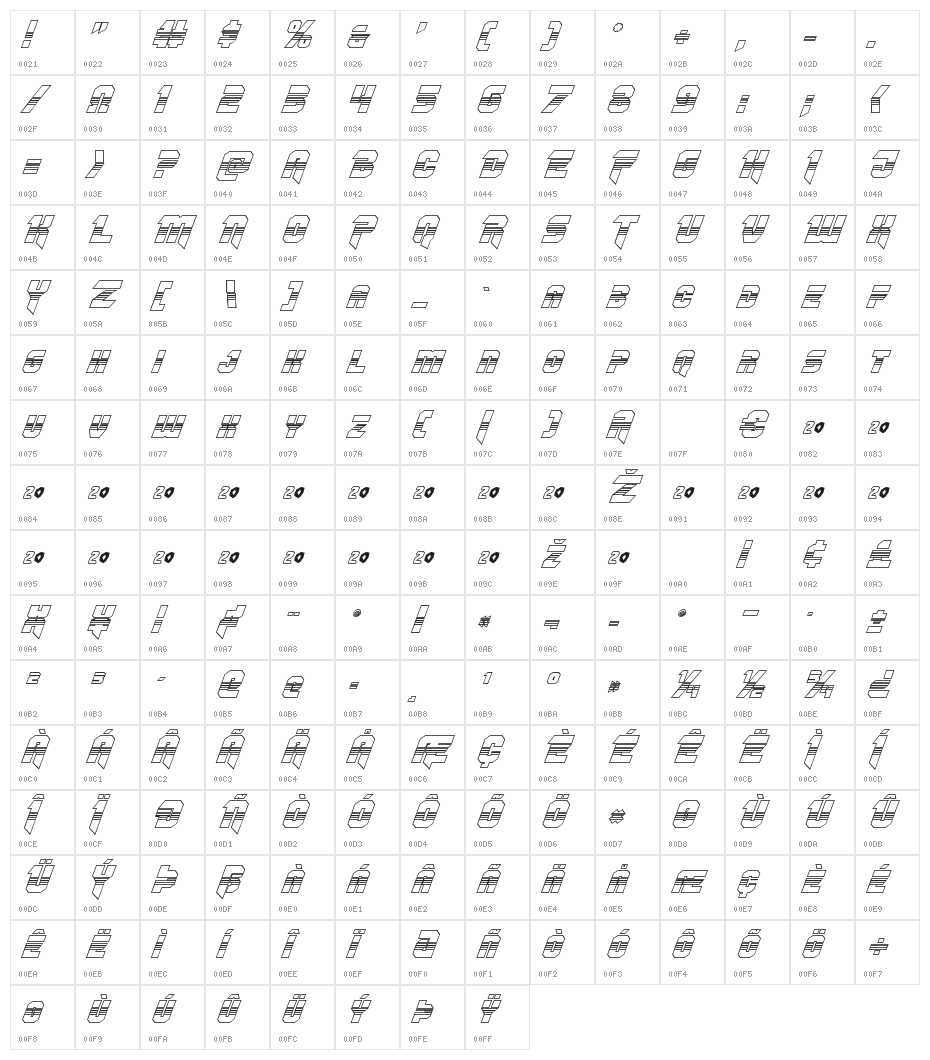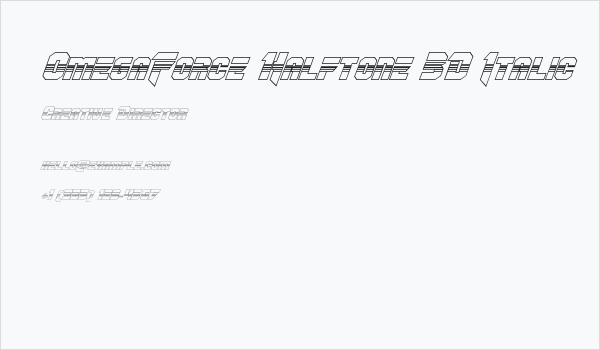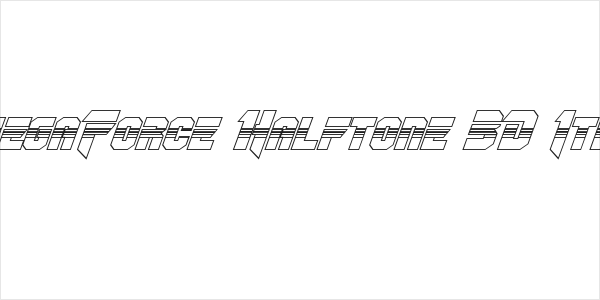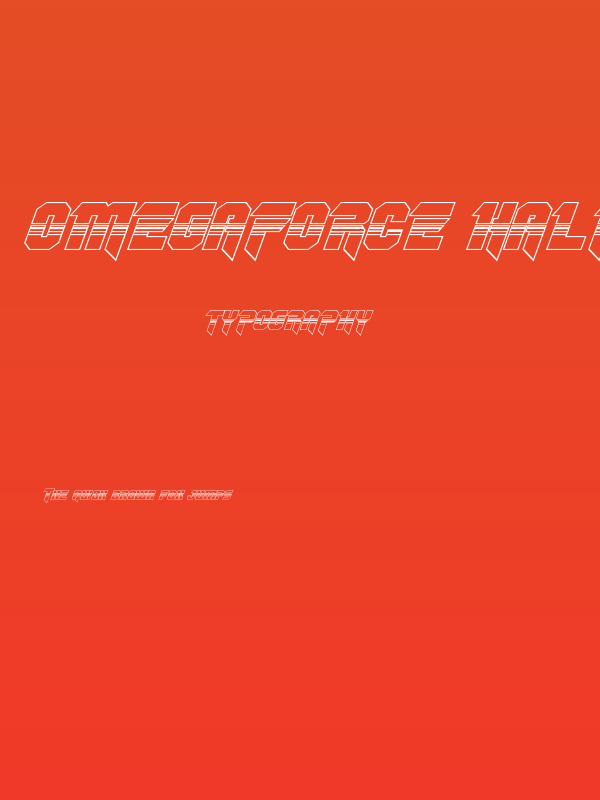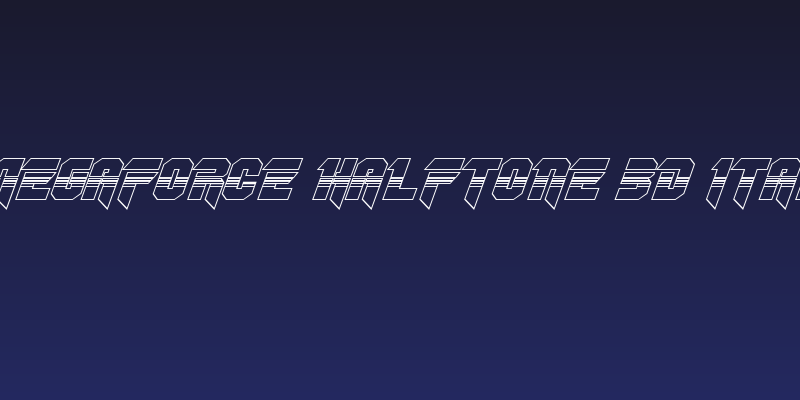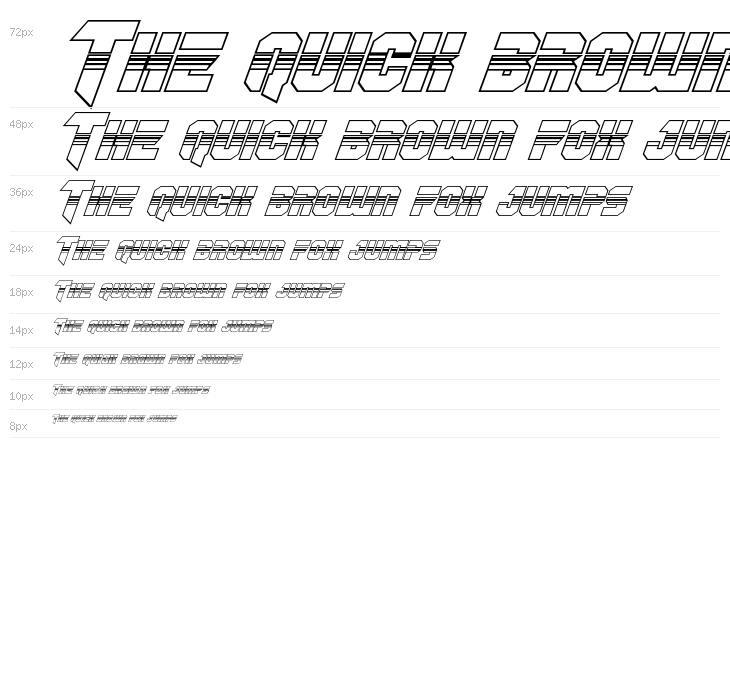
OmegaForce Halftone 3D Italic Font
OmegaForce Halftone 3D Italic Description
This font features a bold, futuristic design with a distinct 3D effect, achieved through the use of parallel lines and angular shapes. The italicized style adds a dynamic, forward-moving appearance, making it ideal for projects that require a sense of motion or modernity. The characters are constructed with a halftone pattern, giving them a textured, layered look that enhances their visual depth. The uppercase and lowercase letters maintain a consistent style, with sharp edges and geometric forms. The numerals and special characters are equally stylized, ensuring a cohesive look across all text elements.
Overall StyleFuturistic
Proposed ProjectsIdeal for sci-fi themed posters, video game titles, and modern branding projects.